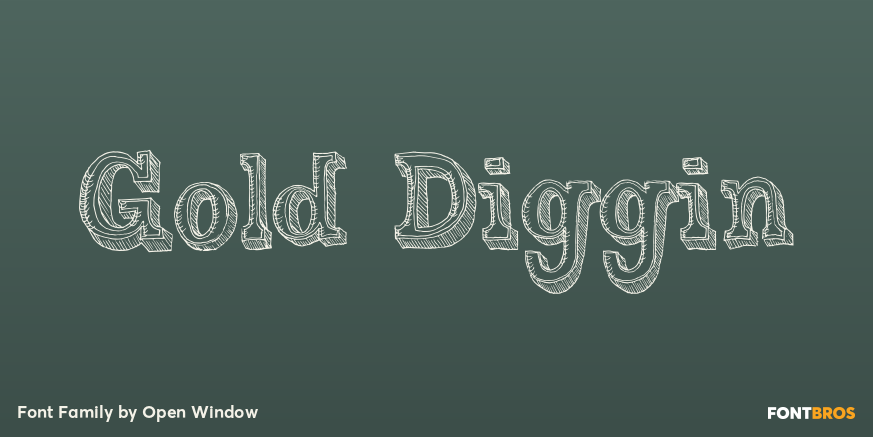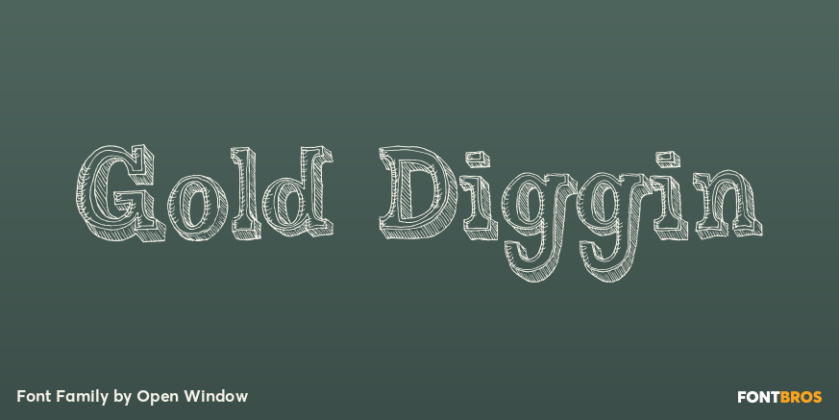
Gold Diggin is an authentic hand-drawn original. It harkens back to posters from the Gold Rush Era. Add some humor and moonshine to your designs with Gold Diggin.